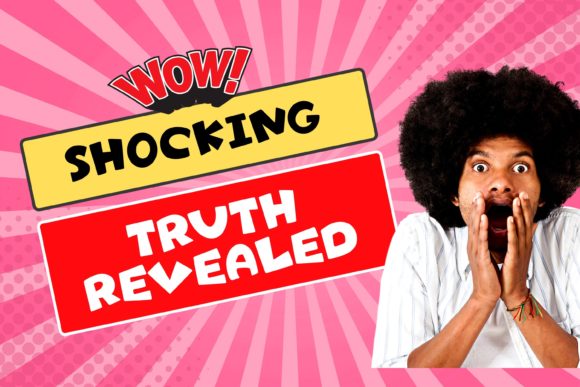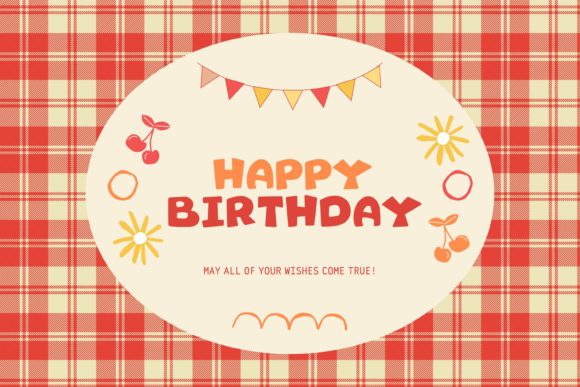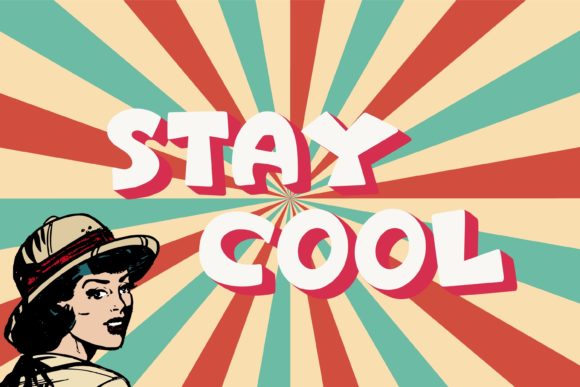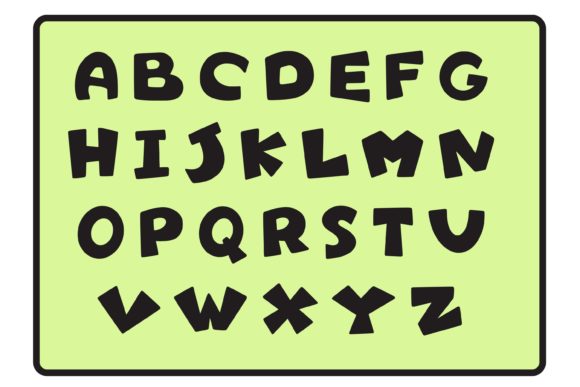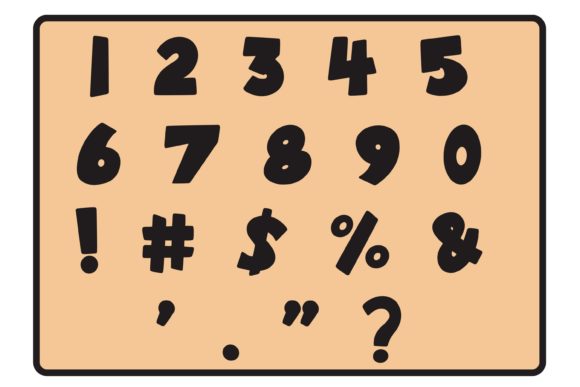
Introducing Giant Font: The Ultimate Quirky Display Font for Kids’ Artwork and Designs
Are you looking for a font that can add a playful touch to your kids’ artwork, classroom decorations, or sticker designs? Look no further than Giant Font! This quirky and thick lettered cartoon display font is perfect for anyone who wants to create fun and engaging designs that kids will love.
What is Giant Font?
Giant Font is a unique and eye-catching font that features thick, bold letters with a playful and quirky feel. Its cartoon-like style makes it perfect for kids’ artwork, decorations, and designs. The font is highly legible, making it easy to read and understand, even for young children.
Key Features of Giant Font
- Quirky and playful style: Giant Font has a fun and quirky style that is sure to capture the attention of kids and adults alike.
- Thick and bold letters: The font features thick and bold letters that are highly legible and easy to read.
- Cartoon-like feel: The font has a cartoon-like feel that makes it perfect for kids’ artwork, decorations, and designs.
- Perfect for kids’ artwork: Giant Font is ideal for kids’ artwork, including posters, signs, and other creative projects.
- Suitable for classroom decorations: The font is also suitable for classroom decorations, including bulletin boards, wall displays, and other educational materials.
- Great for sticker designs: Giant Font is perfect for sticker designs, including labels, tags, and other fun and creative projects.
Benefits of Using Giant Font
There are many benefits to using Giant Font in your designs. Here are just a few:
- Adds a playful touch: Giant Font adds a playful touch to any design, making it perfect for kids’ artwork and other creative projects.
- Highly legible: The font is highly legible, making it easy to read and understand, even for young children.
- Versatile: Giant Font is versatile and can be used in a variety of designs, including posters, signs, stickers, and more.
Tips and Variations
Here are some tips and variations to help you get the most out of Giant Font:
- Experiment with colors: Experiment with different colors to add a pop of color to your design.
- Add textures and patterns: Add textures and patterns to your design to give it a more tactile feel.
- Mix and match fonts: Mix and match Giant Font with other fonts to create a unique and interesting design.
- Use it for headlines and titles: Use Giant Font for headlines and titles to add a bold and eye-catching touch to your design.
Giant Font is a quirky and thick lettered cartoon display font that is perfect for kids’ artwork, decorations, classrooms, or sticker designs. Its playful and bold style makes it highly legible and easy to read, even for young children. With its versatility and ease of use, Giant Font is a great addition to any design project. So why not give it a try and see the amazing outcome for yourself?